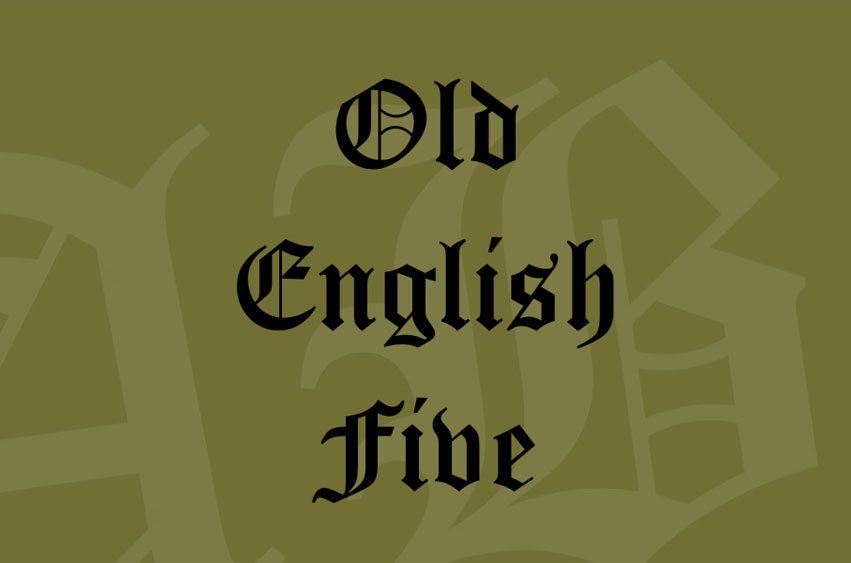
Old English Five Font
Old English Five Font fits in headlines, logos, posters, flyers, invitations, name cards, branding materials, print media, editorial layouts, and many more.